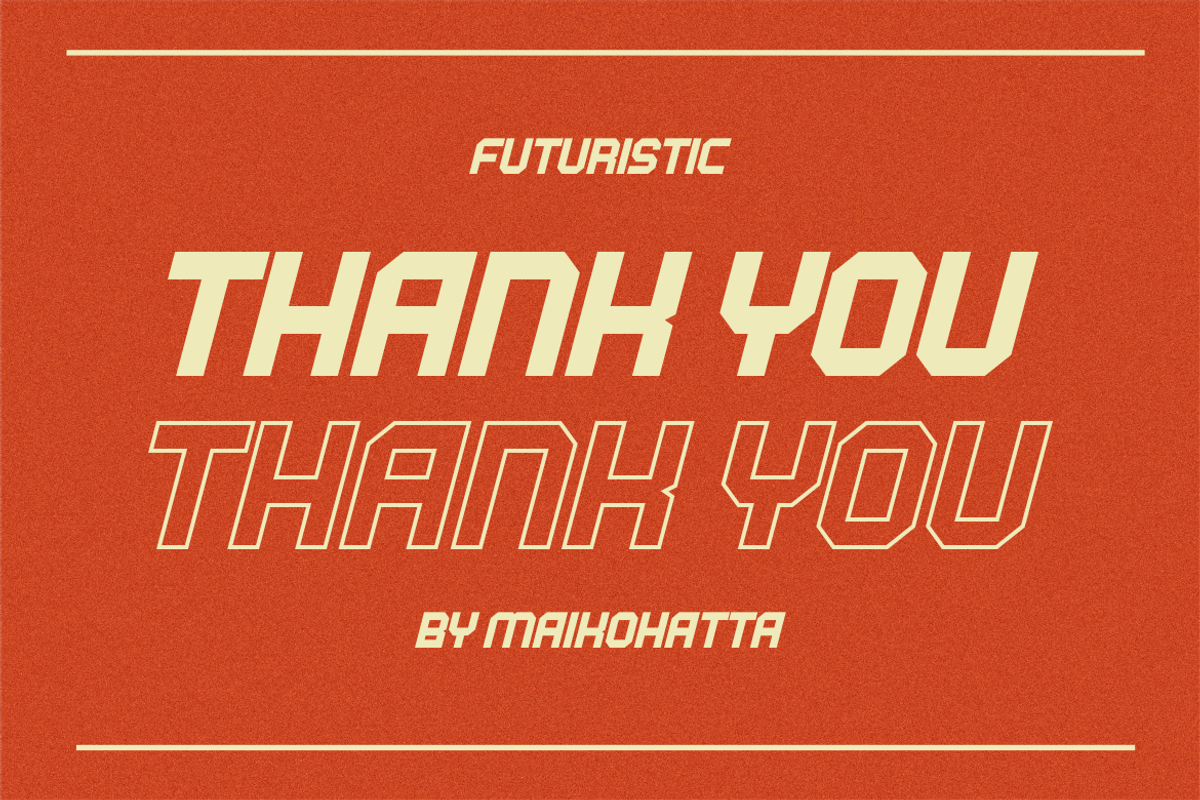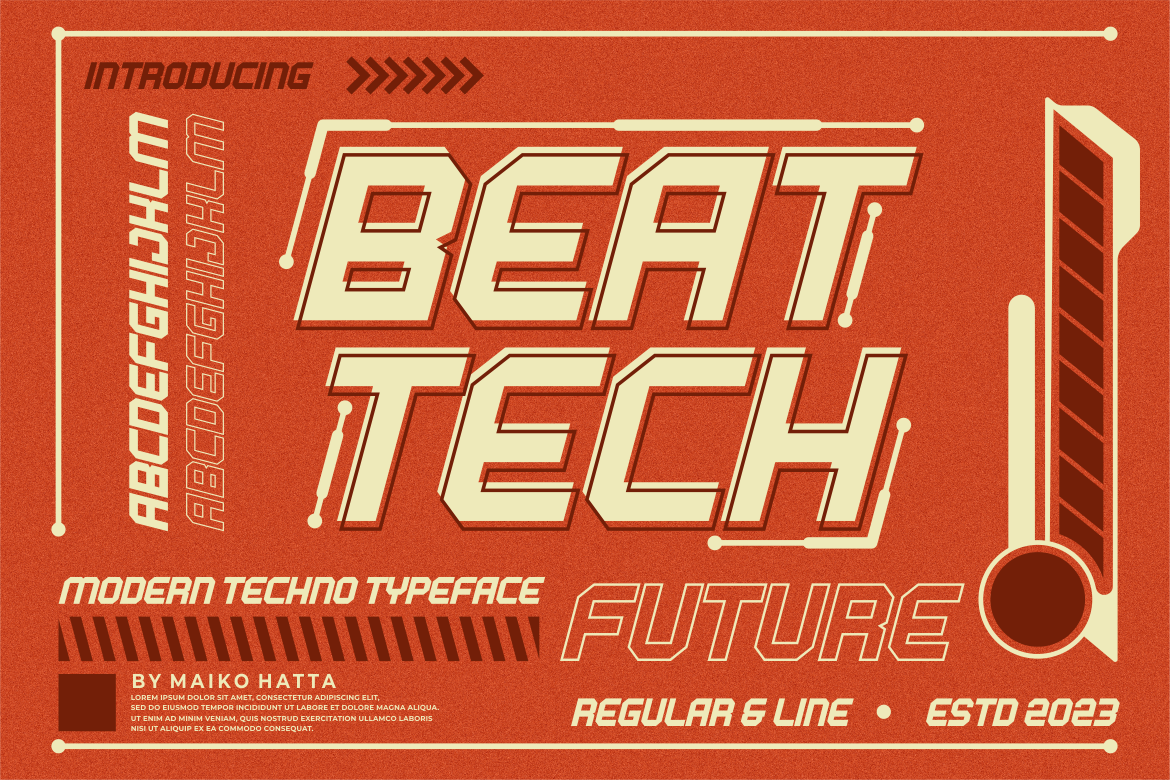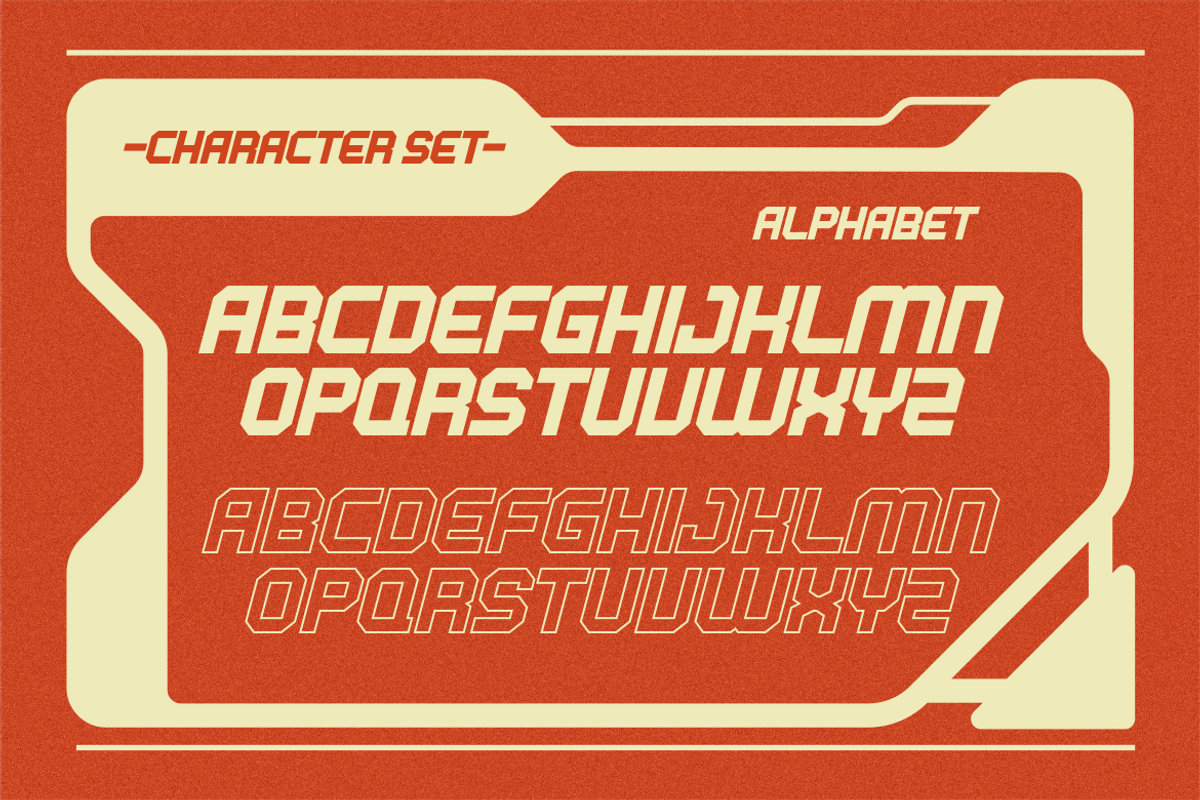
Beat Tech - Modern Techno Typeface
Introducing our new product Beat Tech - Modern Techno Typeface
Beat Tech - Modern Techno Typeface is a bold and authentic display font. The font is suitable for any branding project like logo, t-shirt printing, esport, and many more. outstanding in a wide range of contexts.